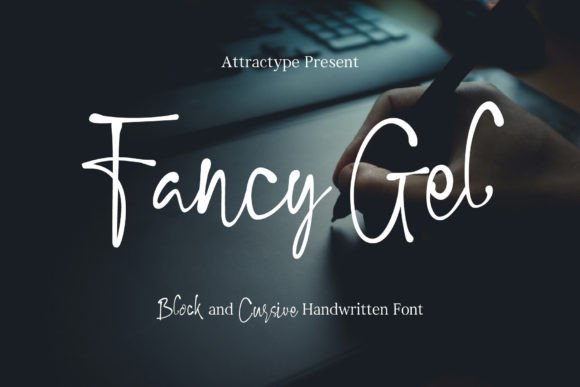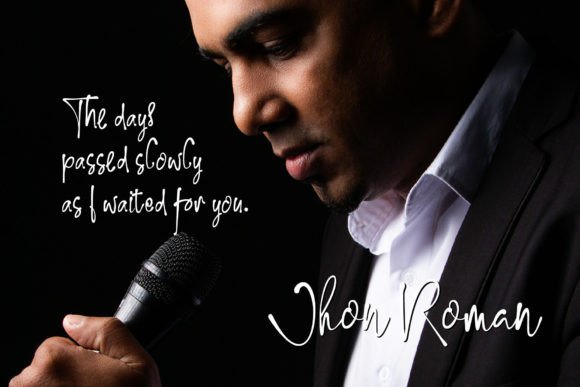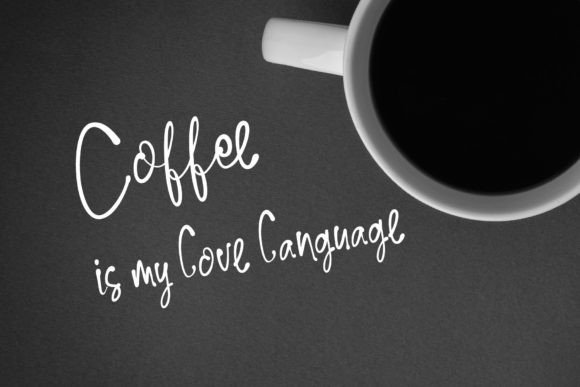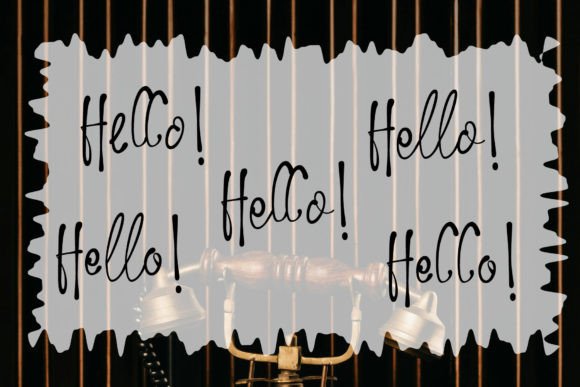
Fancy Gel Font
About the Fancy Gel Font
Explore the possibilities with Fancy Gel Font, a font that offers both beauty and functionality. Fancy Gel is a versatile handwritten font. With block and cursive style features, it is perfect for titles and quotes, legible and attractive for labels, luxurious for brands, and great for signatures.
Its playful yet elegant nature makes Fancy Gel ideal for branding projects needing a touch of luxury, particularly logos, short taglines, and packaging for high-end products. It also excels in invitations, posters, and short-form social media content where its unique character shines. However, avoid using it for large blocks of text or UI elements; its handwritten style is less legible at smaller sizes or in continuous paragraphs.
For optimal visual harmony, pair Fancy Gel with clean sans-serif fonts like Open Sans or Lato for body text, creating a sophisticated contrast. Alternatively, a classic serif like Garamond or Playfair Display adds a touch of timeless elegance, while a geometric sans-serif like Montserrat provides a modern counterpoint.
Fancy Gel projects a bold, yet approachable personality, suggesting a brand that is confident, sophisticated, and slightly whimsical.
Fancy Gel Font Usage Examples
Fancy Gel Font Example